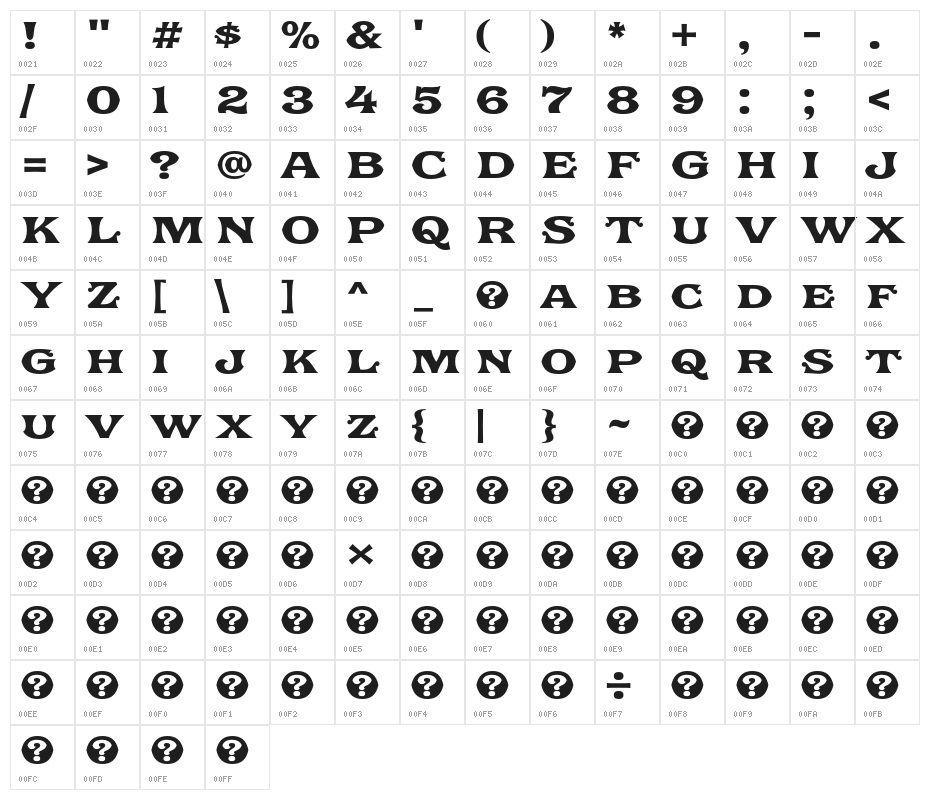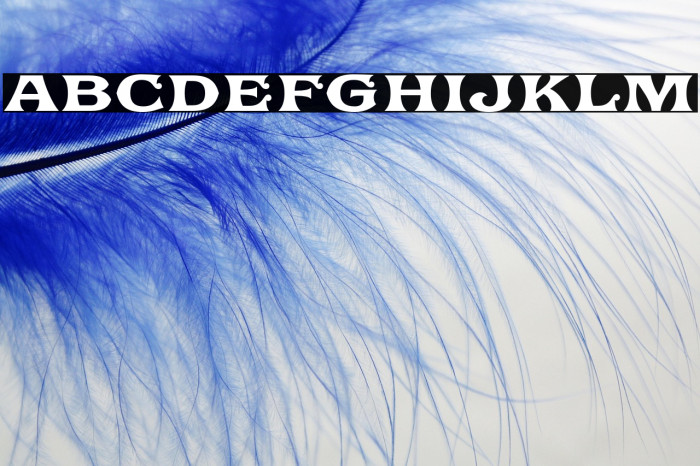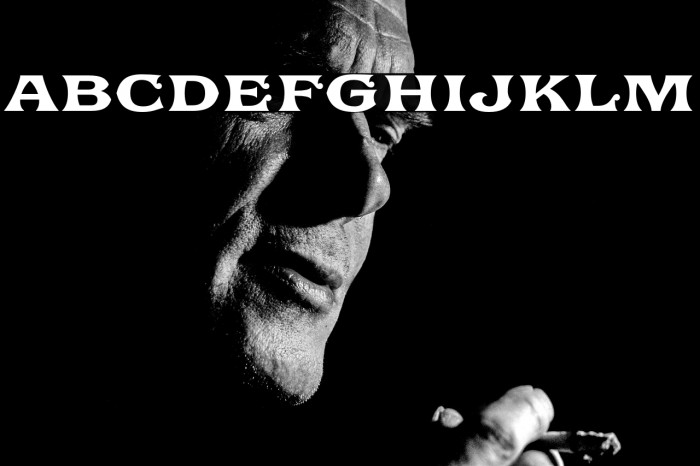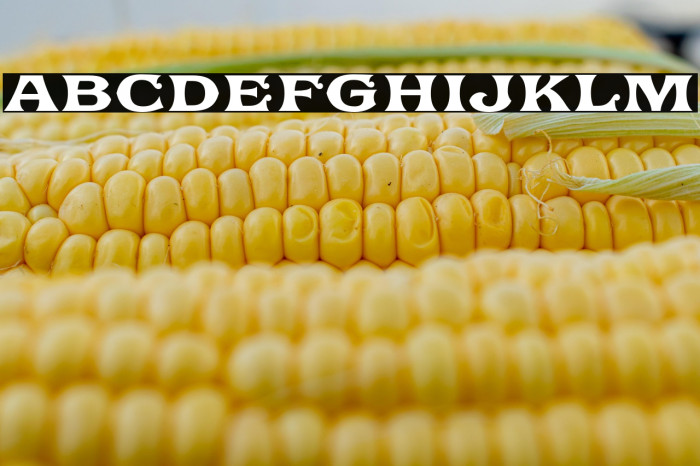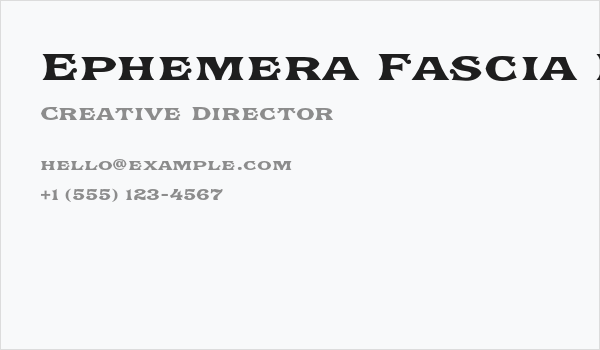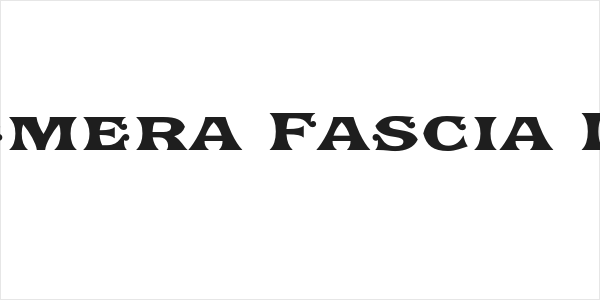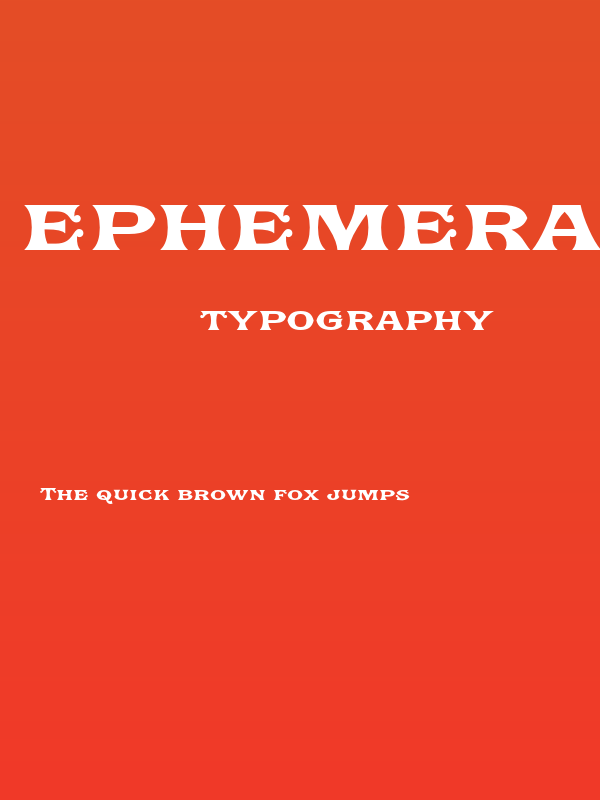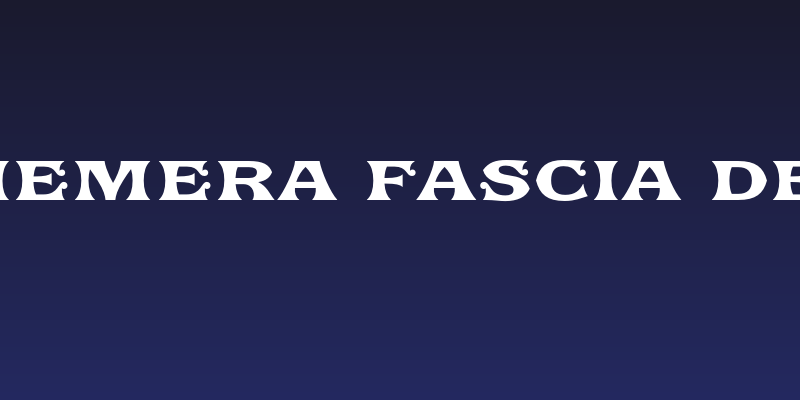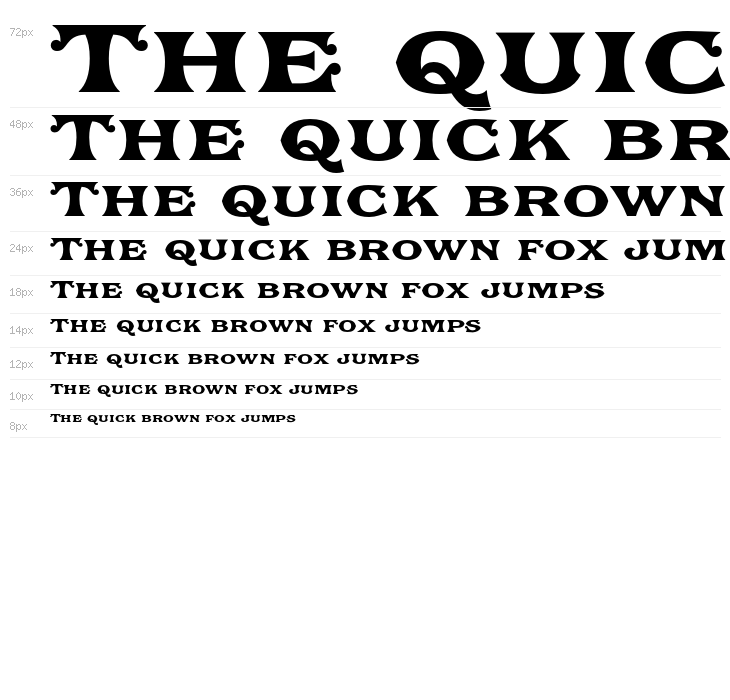
Ephemera Fascia Demo Font
This font features a bold and striking design with a unique blend of modern and vintage elements. The characters are crafted with a distinct flair, incorporating sharp serifs and dramatic curves that give it a decorative appearance. The uppercase letters are particularly eye-catching, with a strong presence that commands attention. The numerals and special characters maintain the same stylistic approach, ensuring consistency across all elements. This font is ideal for projects that require a bold statement, such as branding, posters, or headlines. Its decorative nature makes it less suitable for body text but perfect for creating a memorable visual impact.
| Proposed Projects | Branding, posters, headlines, logos, and any project requiring a bold visual statement. |